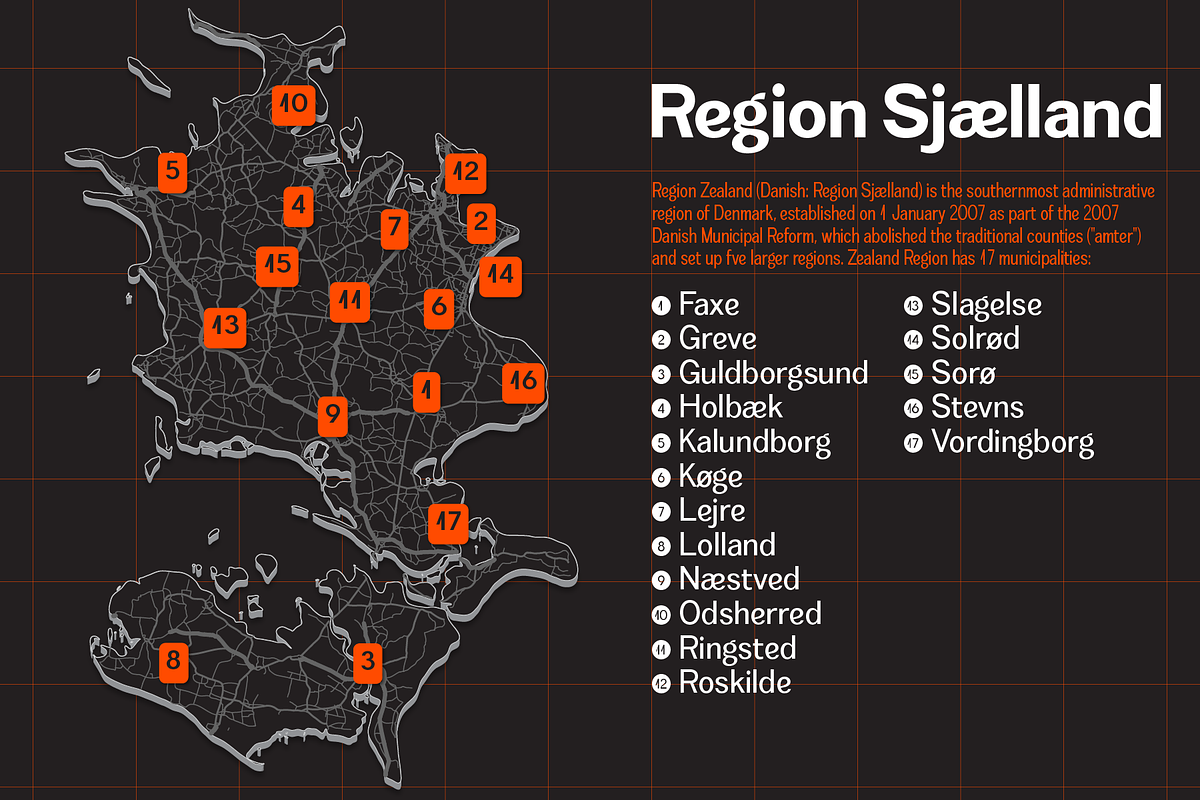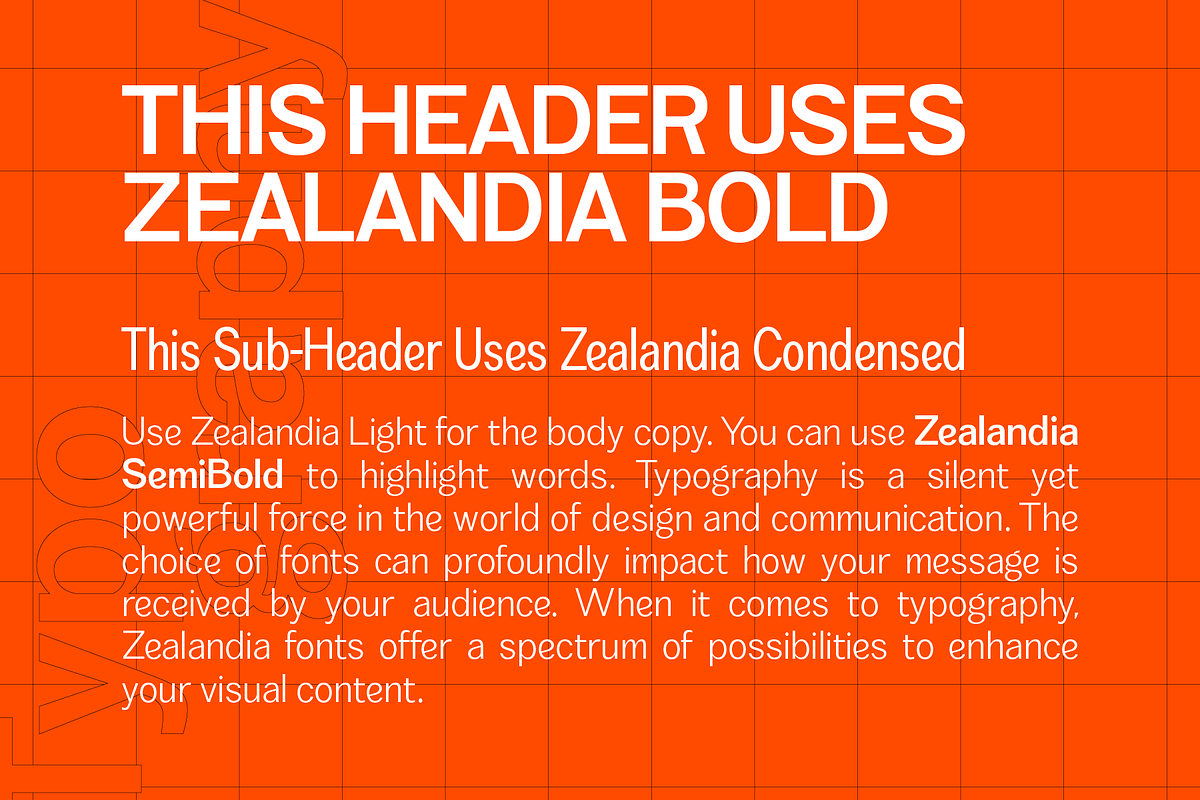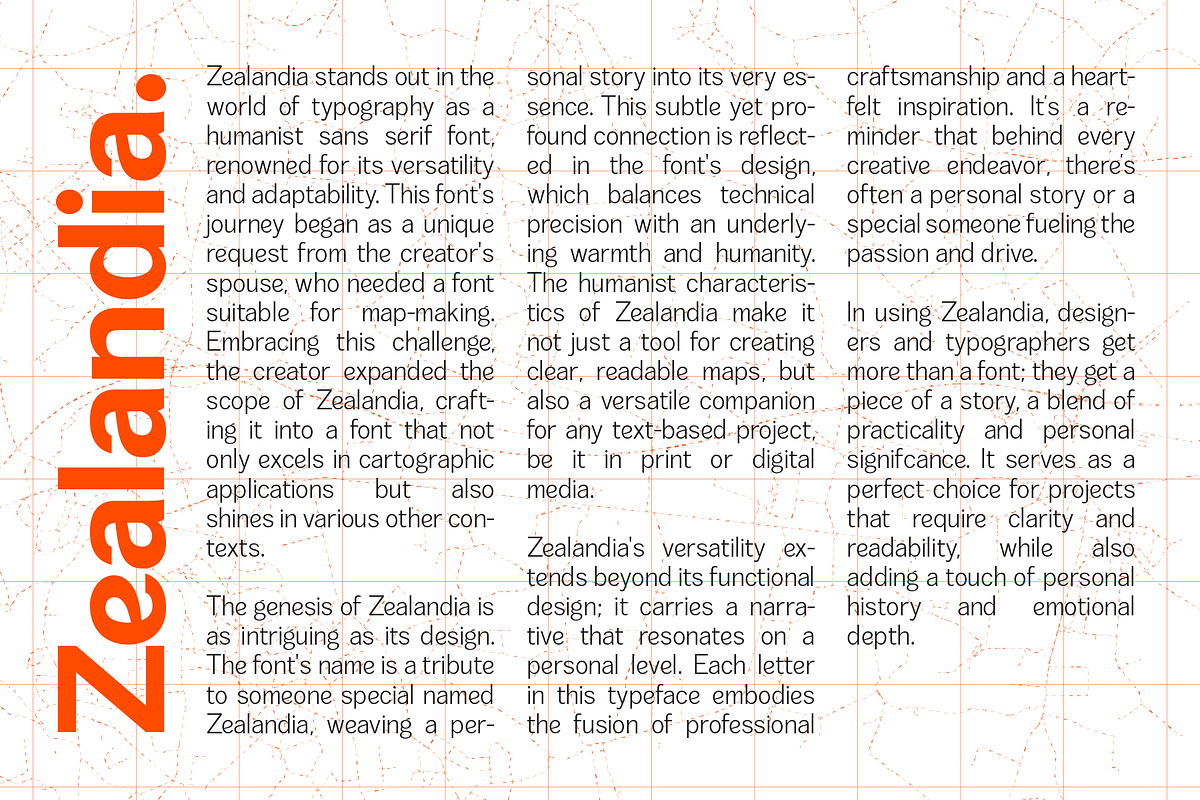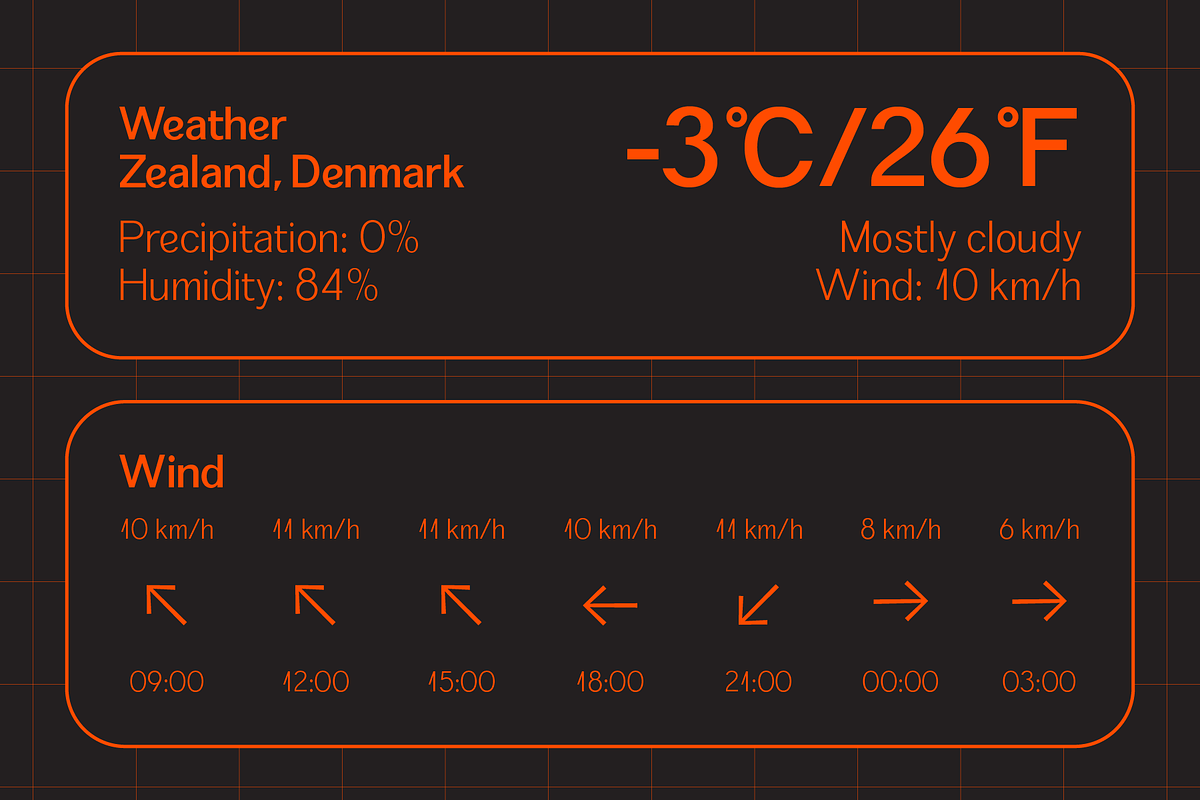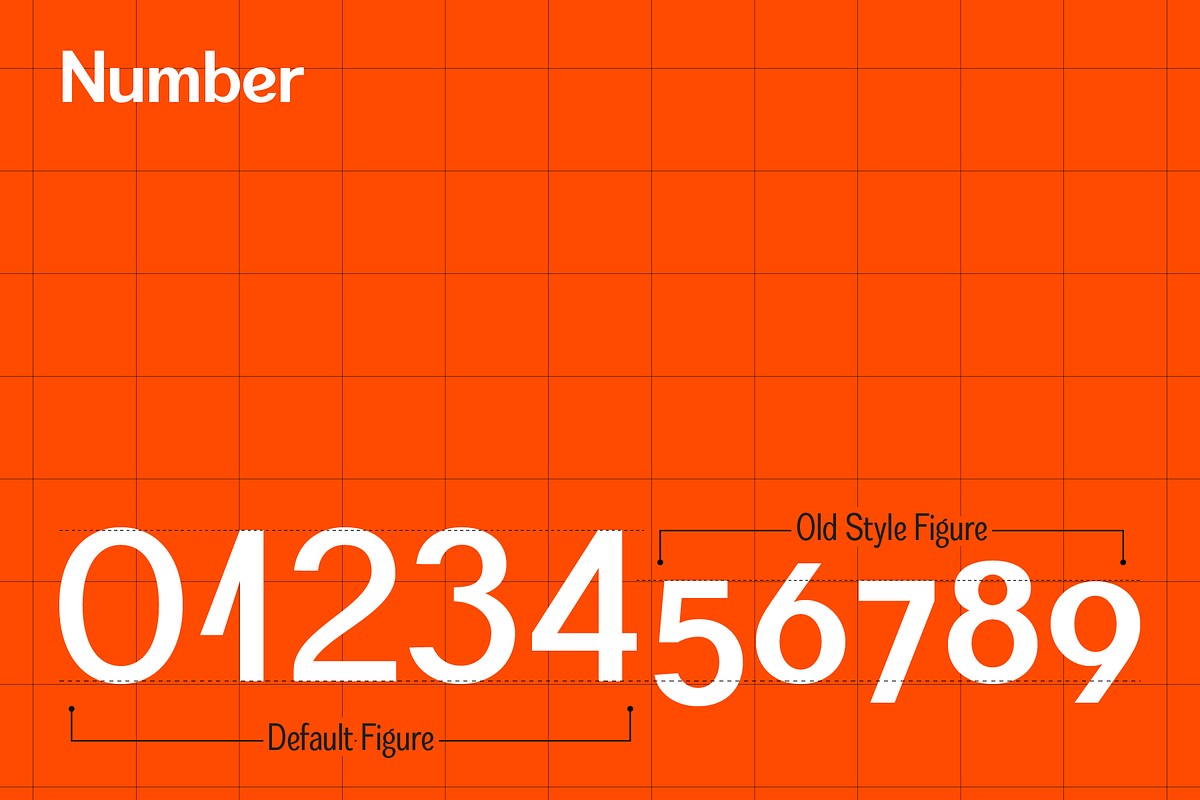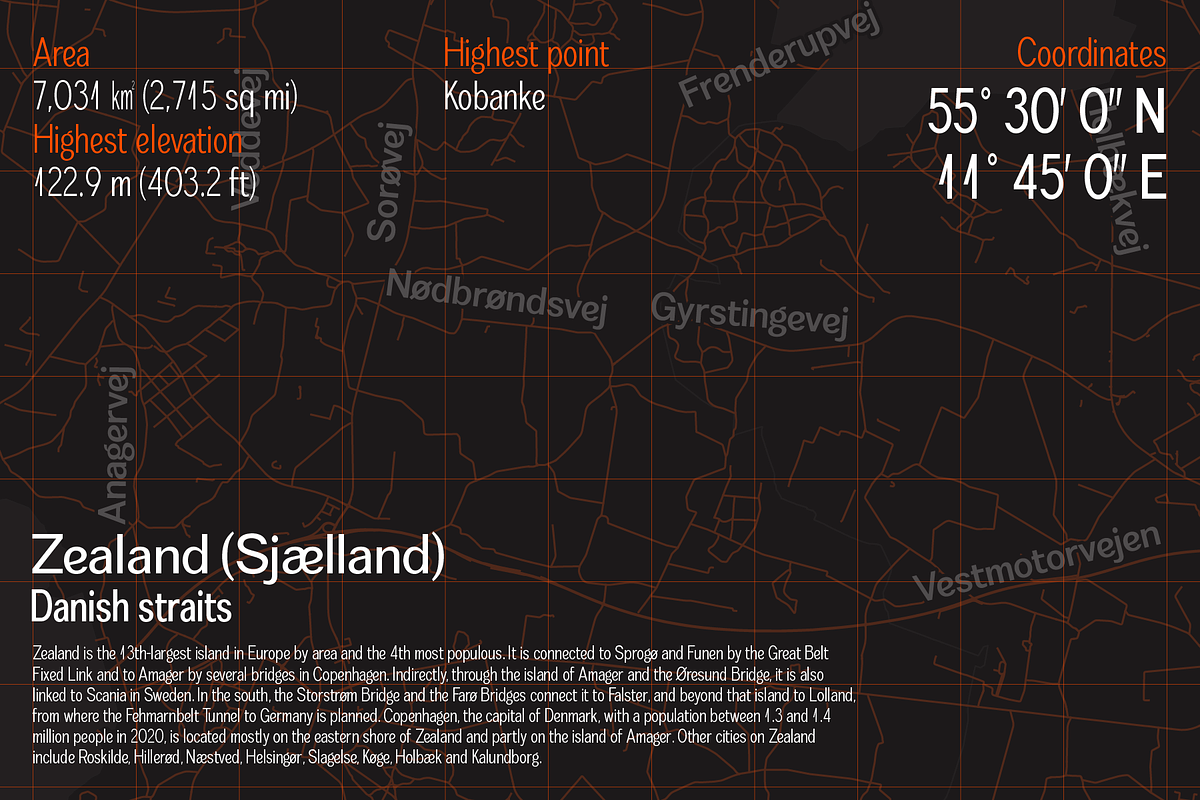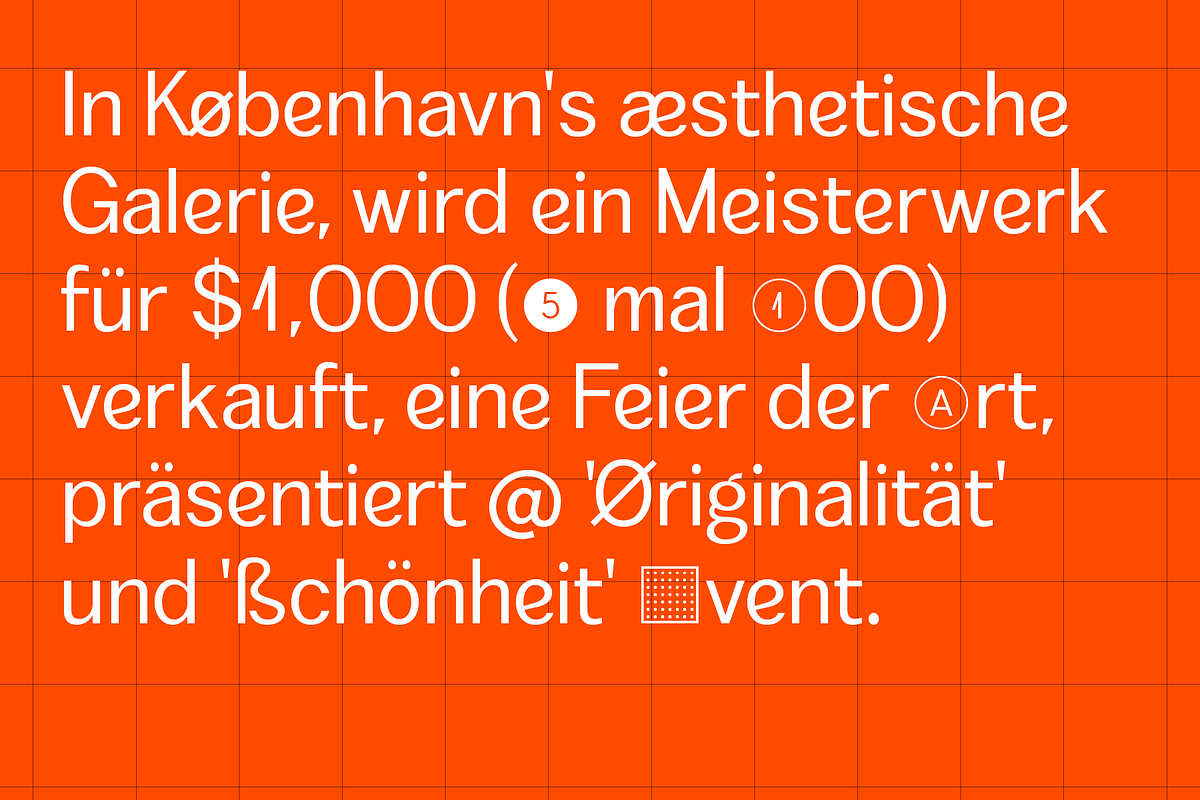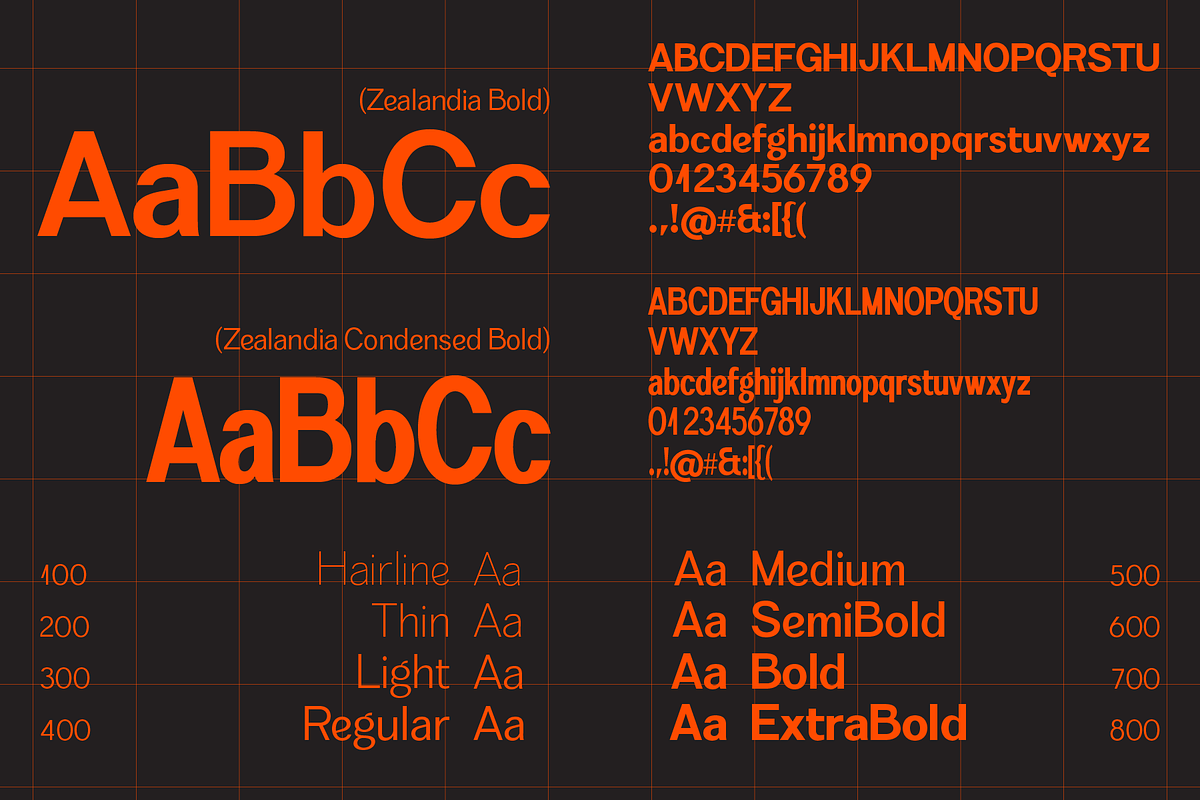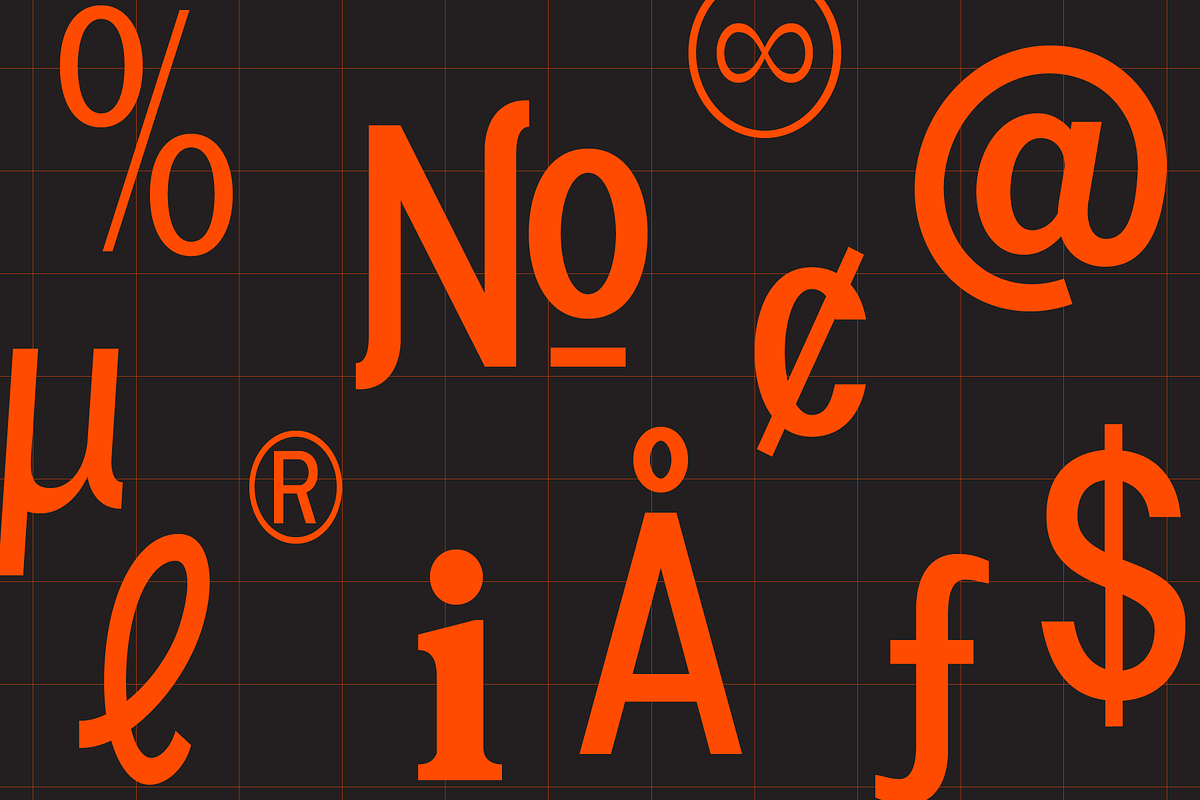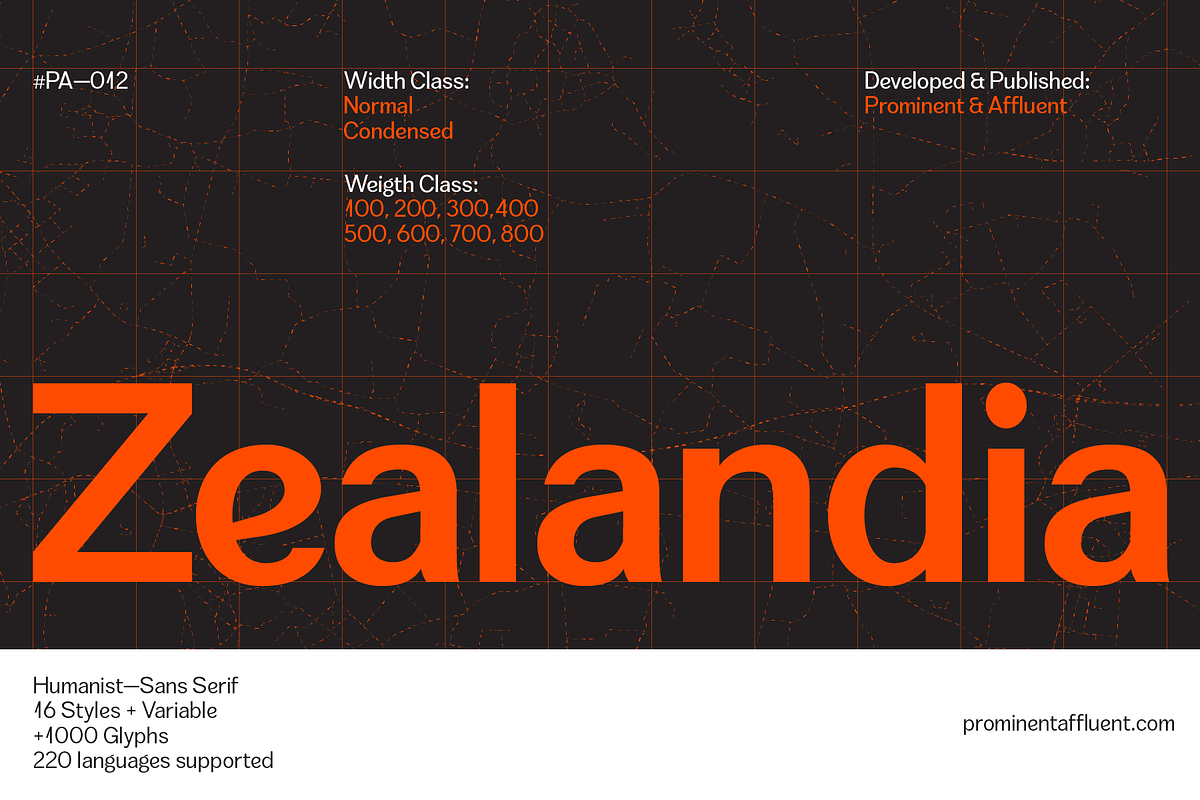
Zealandia - Sans Serif
Zealandia stands out in the world of typography as a humanist sans serif font, renowned for its versatility and adaptability. This font's journey began as a unique request from the creator's spouse, who needed a font suitable for map-making. Embracing this challenge, the creator expanded the scope of Zealandia, crafting it into a font that not only excels in cartographic applications but also shines in various other contexts.